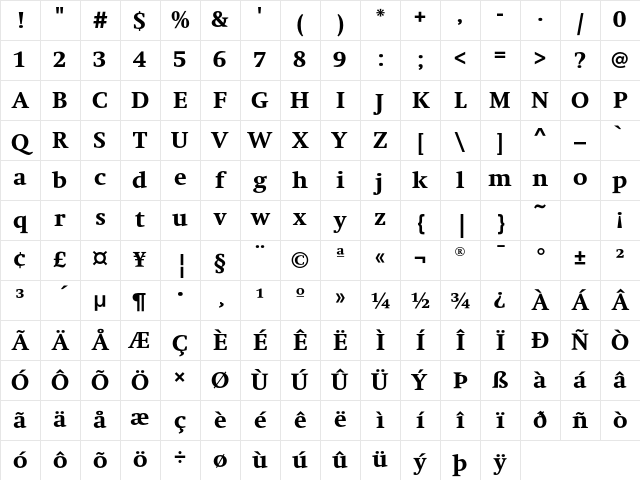
SwiftEF ExtraBold
Design Context for SwiftEF
SwiftEF is a composed and adaptable typeface that performs quietly and consistently across a wide range of design contexts. Its bold stroke weight gives it real presence on the page.